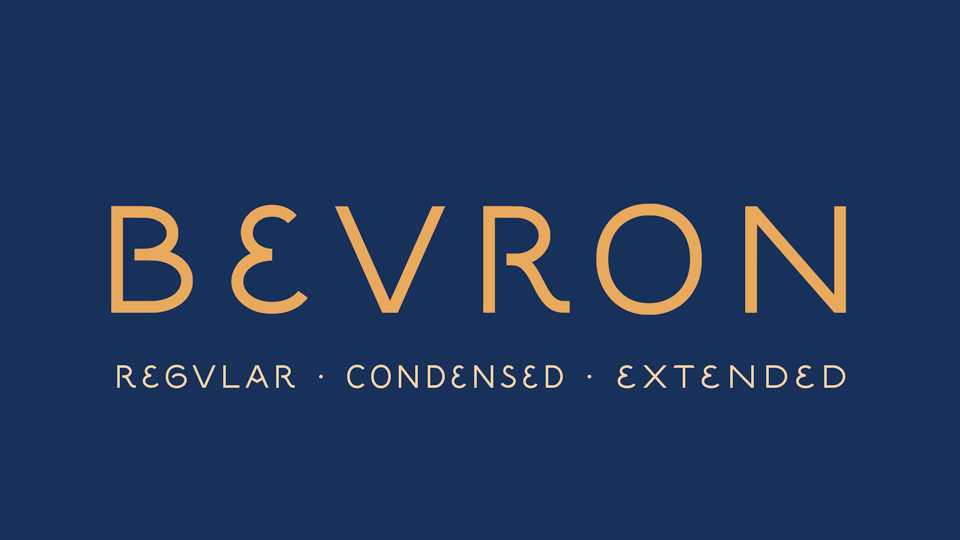
Beuron Font › Fontesk – Download Grátis
Download Beuron font, a monumental script consisting of capital letters only, based on the murals painted by the artists of the Beuron school in 1870s.
Designer: Keno Wehr